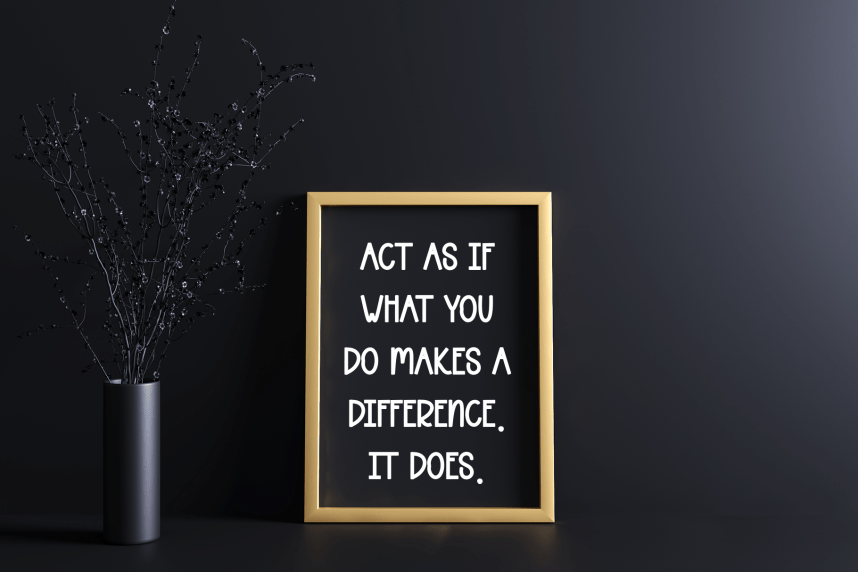
Black Vintage – Creative Style Font
Black Vintage – Creative Style Font is a sweet and friendly handwritten display font. Cute and fun, this font is ideal for writing wedding invitations, cards, or any other design that might need a playful touch!